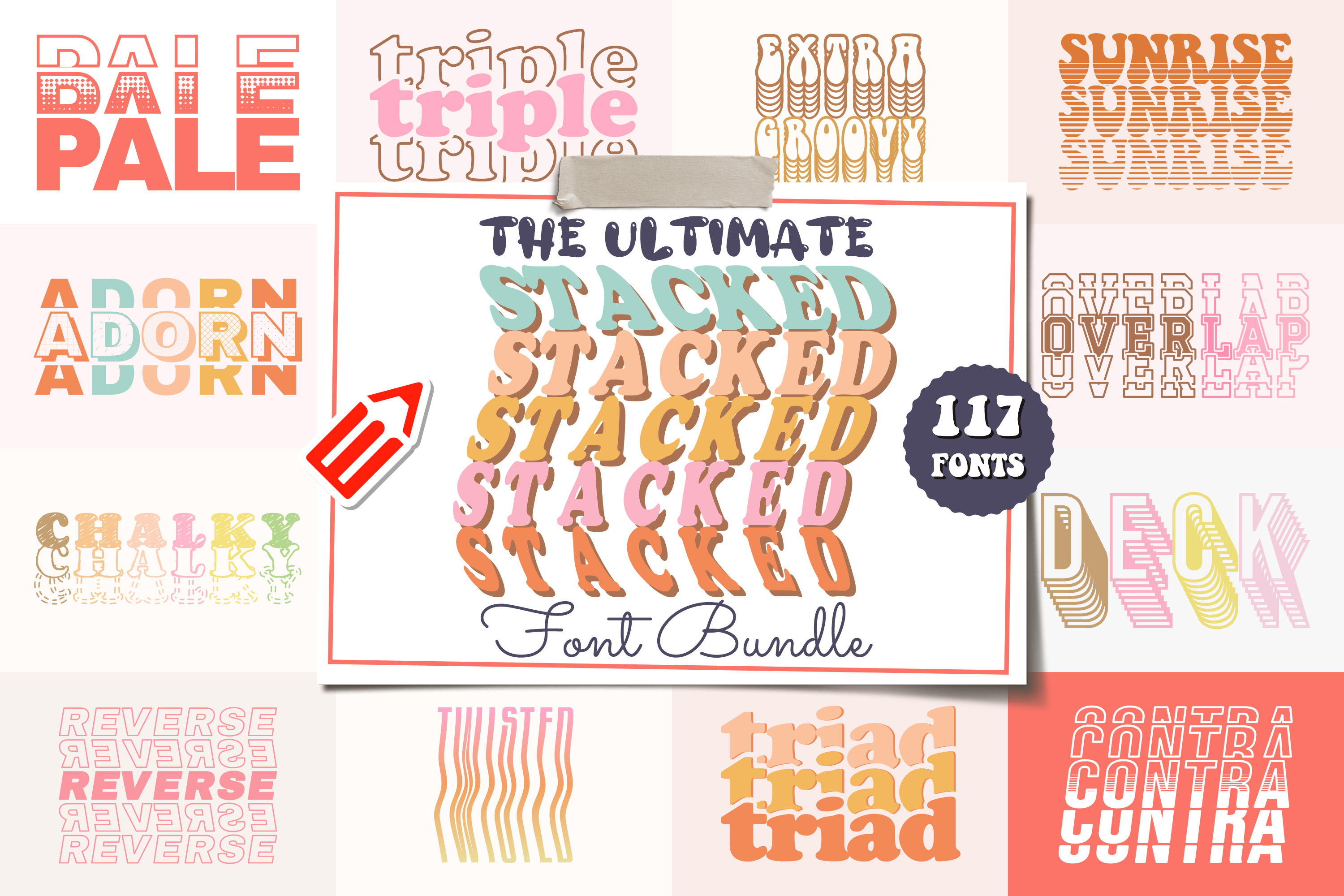
The Ultimate Stacked Font Bundle
The Ultimate Stacked Font Bundle is here with an incredible selection of 117 stacked fonts. The ultimate solution for effortless design mastery! Create stunning printable products with ease, from trendy t-shirts to eye-catching mugs and more. No graphic design skills required - just install the fonts and start typing! Our curated collection offers a wide range of styles, from bold and modern to elegant and sophisticated. Compatible with popular design software, this bundle unlocks limitless possibilities to express your unique style and leave a lasting impression. Elevate your design game today and unleash your inner artist with the ultimate stacked font bundle.
Included in this pack: Adorn Alter Away Bellbottom Blink Blurry Boogie Woogie Busy Cards Chalky Chess Chimney Clogged Ink Column Confet Contra Crayon Custom Deck Diagon Disco Days Disco Daze Disco Funk Dotted Draft Drop Dusty Echo Error Extra Groovy Faded Fadefunk Fader Far Out Filled Fisheye Flower Child Flower Power Full Moon Funkadelic Funky Polka Fuzzy Game Grungy Half Halfway Hanging Heaps Heavy Hippi3 Hippy Hop Hippy Time Jigsaw Kidweb Layer Level Loading LoveU Maple Marker Mesh Missing Mullet Night Ocean Overlap Pale Patrio Pins Pipeline Polky Puzz Rainbow Road Reflect Reflex Retro Funk Retrogroove Retro Rock Retros Retrospect Reverse Roller Rough Sandy Shaky Sketch Slope Smudge Sonar Speedy Spider Splash Split Stamp Starry Stripe Sunrise Sunset Surfy Swirl Swirls N Curls The 70s Vibes The Box Third Tire Tread Tower Tracy Triad Triple Twisted Vinyl Wasted Wavy Whammy Whirlpool Woodstack WTFunk